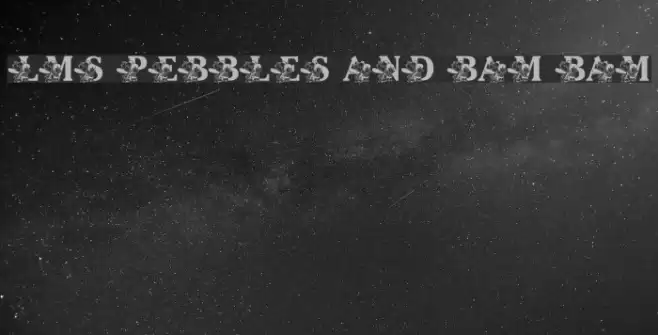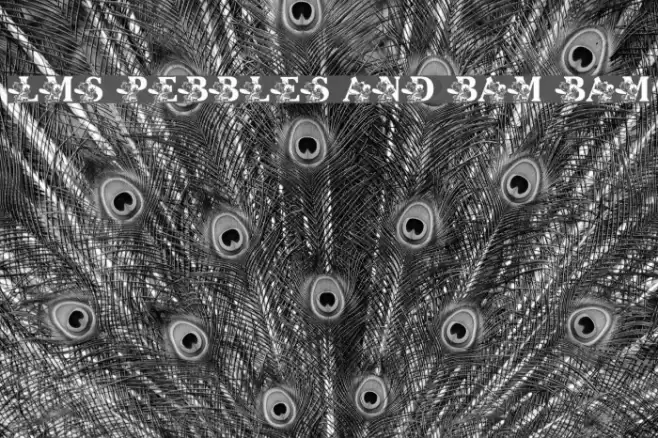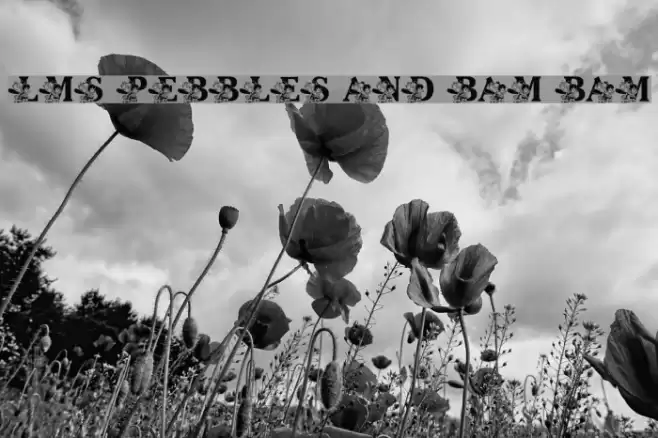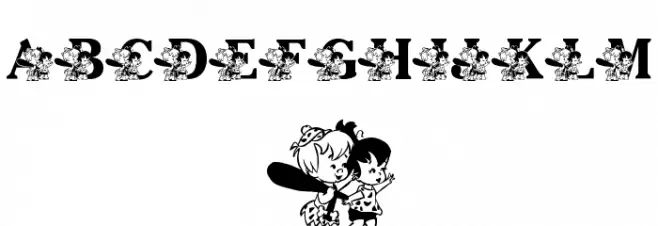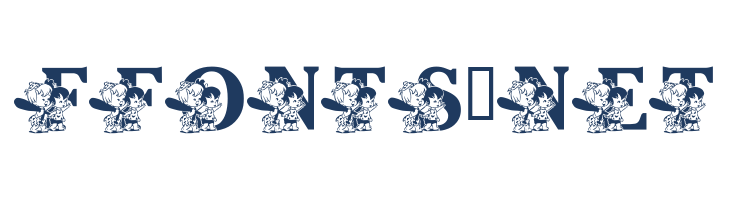
LMS Pebbles and Bam Bam Font
LMS Pebbles and Bam Bam Description
This playful and decorative font features characters that are creatively integrated with cartoon illustrations, adding a whimsical and nostalgic touch. The letters are bold and prominent, with each character adorned by a small, detailed cartoon figure that enhances the overall design. This unique style captures a sense of fun and creativity, making it ideal for projects that aim to evoke a sense of childhood or playfulness. The font's boldness ensures readability while the decorative elements provide a distinctive flair.
A playful, cartoon-themed decorative font with bold characters from Uncategorized fonts.
- Proposed Projects: Ideal for children's book covers, playful invitations, themed party decorations, and nostalgic merchandise.
- Overall Style: Playful, Nostalgic, Decorative
- Use Case: Headlines, Logos, Decorative Text